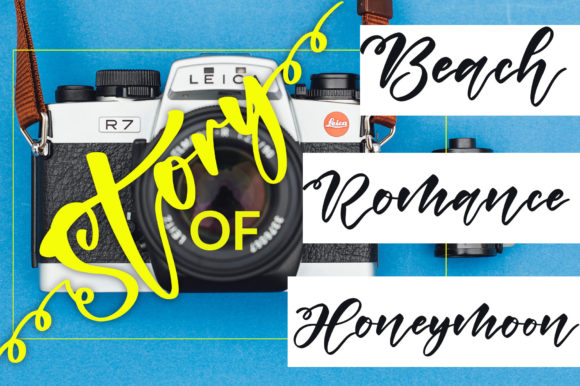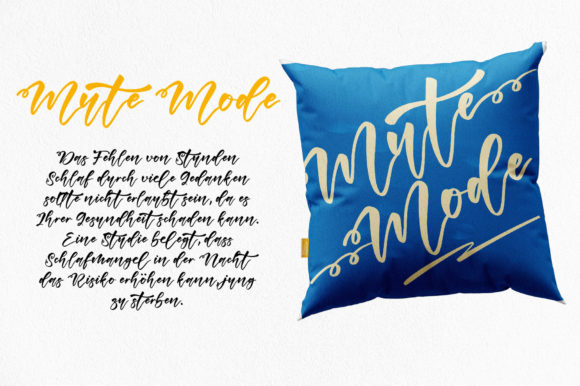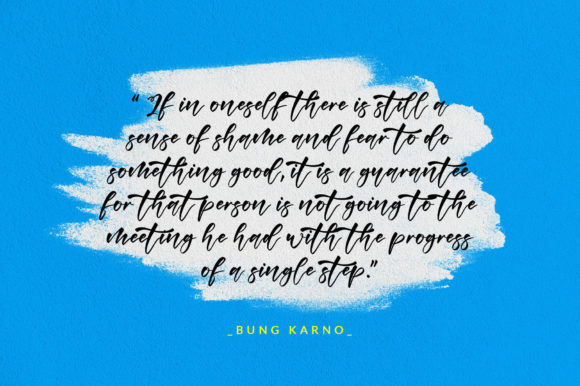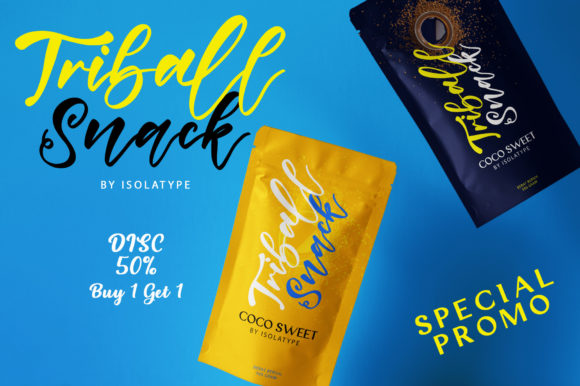
Rosmine Font
Rosmine Script Font
This is a lovely script font featuring charming, playful characters that seem to dance along the baseline.
Wildan Type